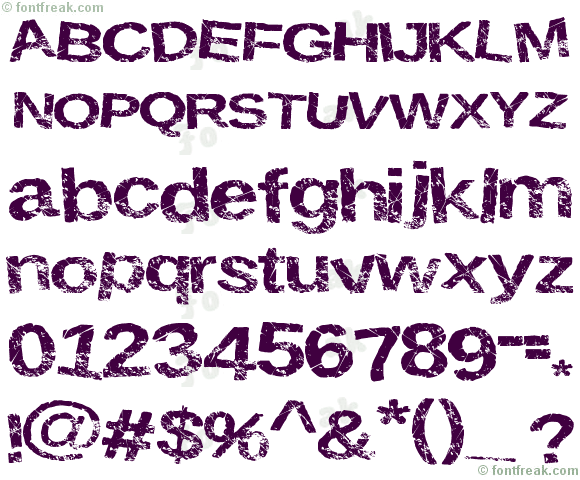
KrustySigns
KrustySigns is a unique display font designed by Xerographer Fonts, released in 2015. This decorative typeface embodies a playful, slightly weathered aesthetic that captures the essence of hand-painted signs, making it an excellent choice for various creative projects. With its irregular stroke weight and a textured finish, KrustySigns exudes a charming, vintage appeal. The letters feature a good amount of spacing, which enhances readability while maintaining a casual, handwritten vibe.
This font is perfect for a range of applications. It shines brightly in restaurant menus, where it can evoke a cozy, inviting atmosphere. Its quirky nature makes it ideal for movie posters, especially for genres like comedy or indie films, where a lighthearted tone is desired. Additionally, KrustySigns can be effectively utilized in promotional materials for events or festivals, giving them a distinctive flair that attracts attention. Graphic designers will also find this font useful for creating eye-catching logos or branding elements that require a touch of personality.
What sets KrustySigns apart from other fonts is its distinctive character and versatility. The combination of its playful design and the ability to adapt to various contexts makes it a standout choice for anyone looking to make a statement. Whether you're crafting a whimsical invitation or designing an eye-catching advertisement, KrustySigns will add an unforgettable element to your creative endeavors.